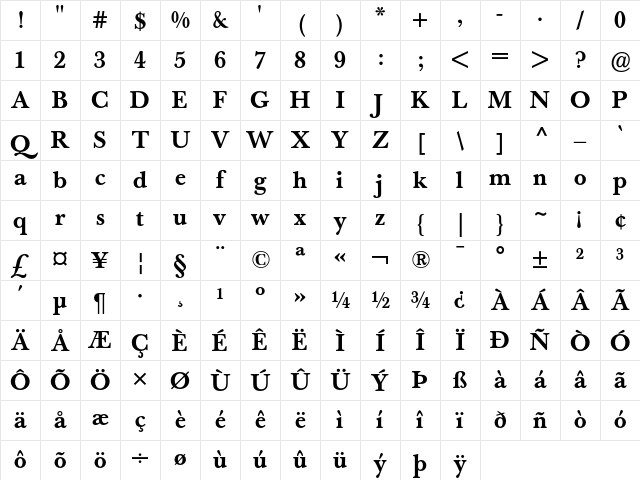
Berthold Baskerville Book Medium
Design Context for Berthold Baskerville Book
Berthold Baskerville Book is a composed and adaptable typeface that performs quietly and consistently across a wide range of design contexts.
Pro Tip: Use Berthold Baskerville Book in both headline and body roles to test its range before committing to a single application.